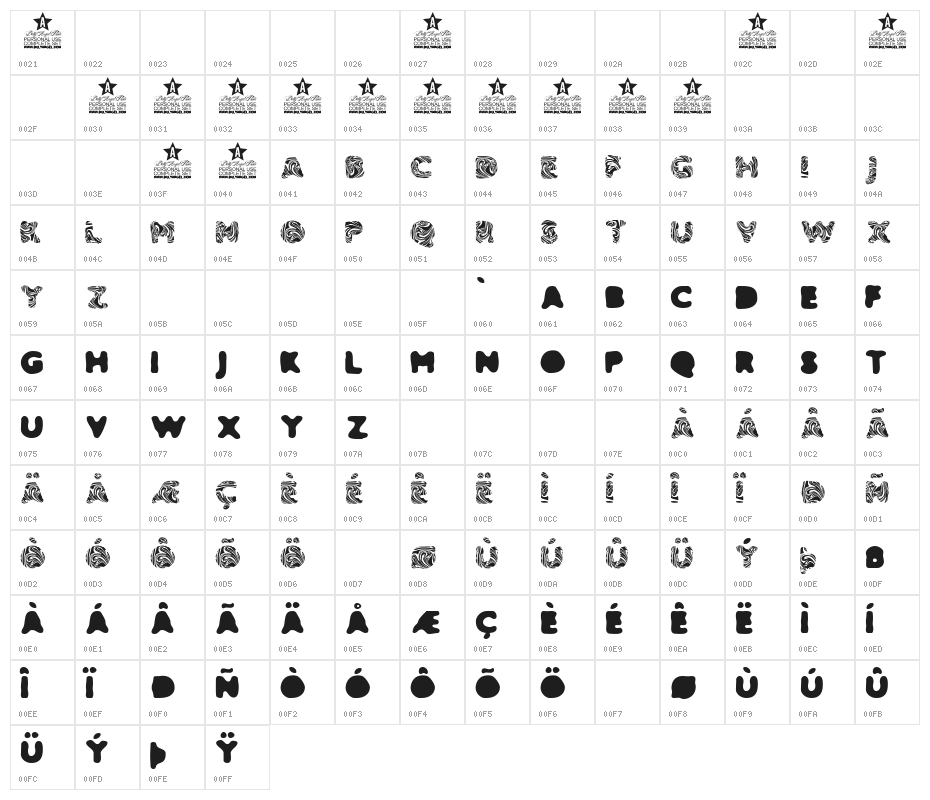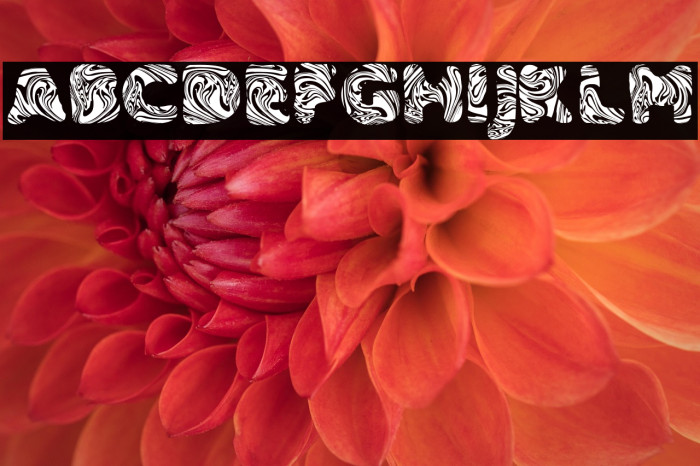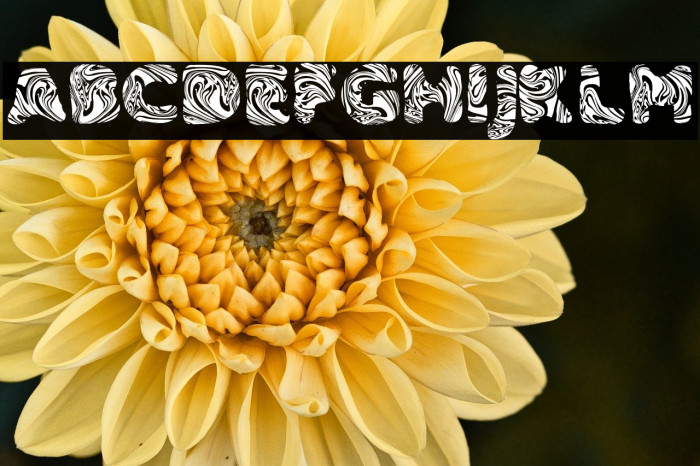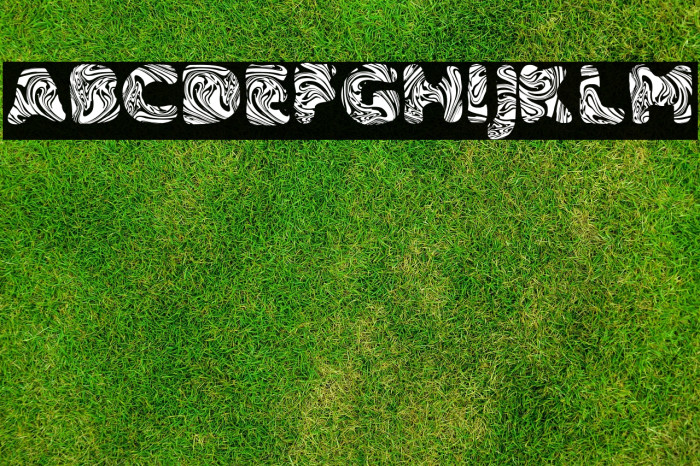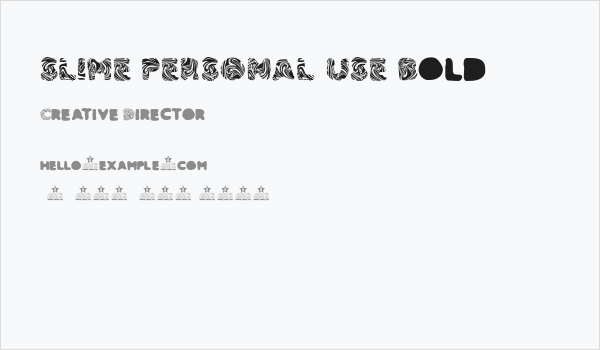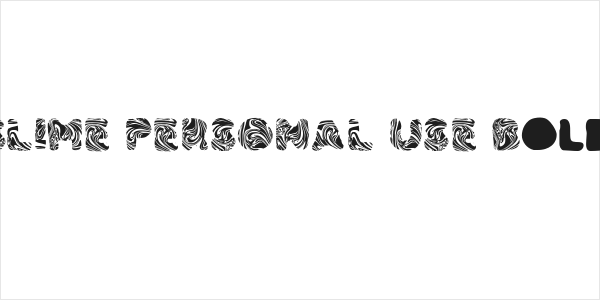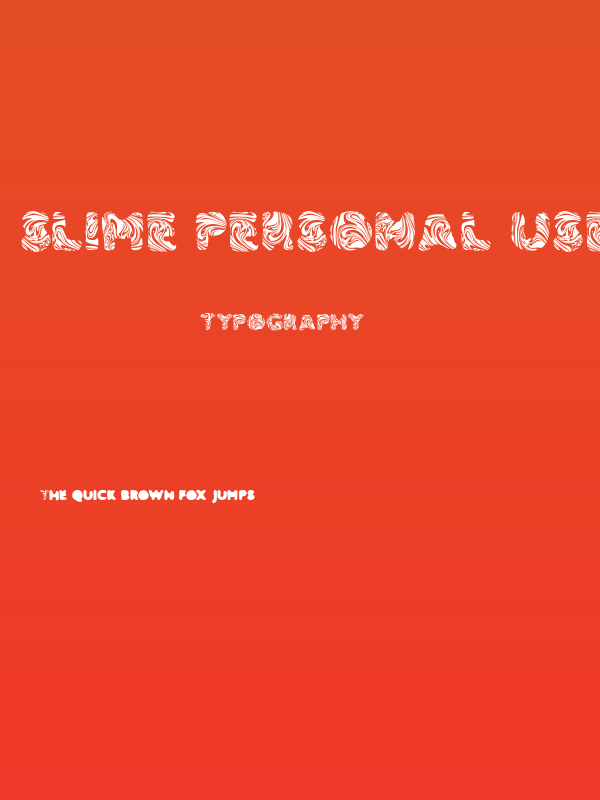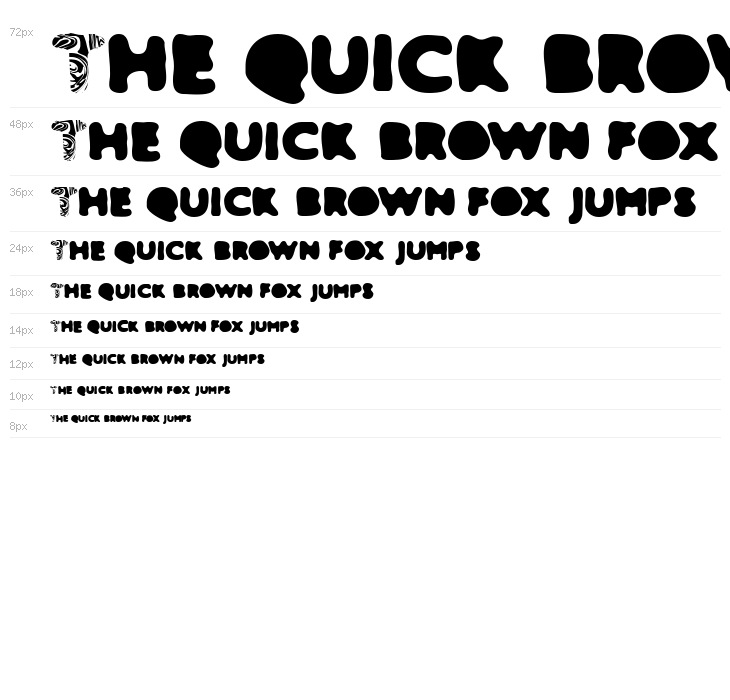
SLIME PERSONAL USE Bold Font
SLIME PERSONAL USE Bold Description
This playful and bold font features a unique, organic design that resembles flowing slime or liquid. The uppercase letters are characterized by their thick, rounded forms with irregular edges, giving them a dynamic and lively appearance. The font's style is reminiscent of a playful, cartoonish aesthetic, making it ideal for projects that require a fun and informal tone. Its boldness ensures high visibility, making it suitable for eye-catching headlines or titles. The font's distinctive style is perfect for creative projects that aim to stand out with a whimsical and unconventional look.
| Overall Style | Playful, Cartoonish |
| Proposed Projects | Ideal for children's book covers, playful branding, party invitations, and creative posters. |